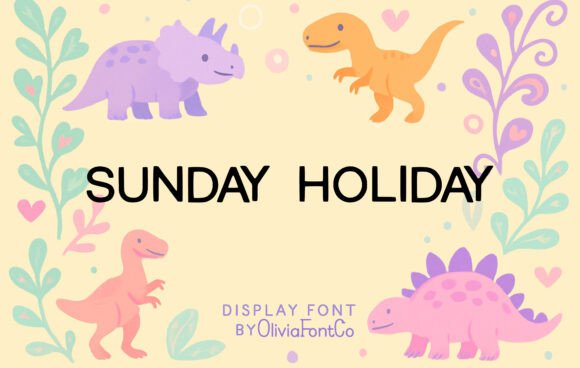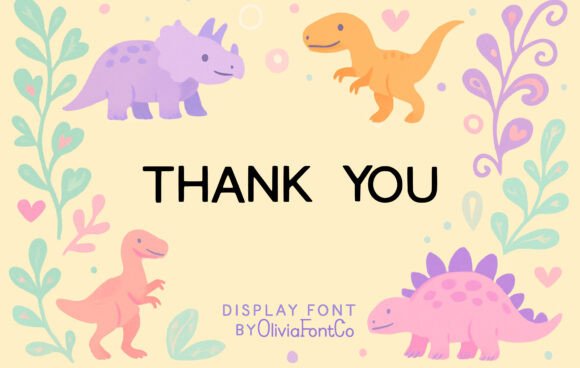
Introducing Adithia Font: Elevate Your Designs with Elegance and Versatility
In the world of design, fonts play a pivotal role in bringing creative ideas to life. Among the myriad of typefaces available, Adithia Font stands out as a remarkable choice for designers and crafters alike. This font is designed to be a true favorite, boasting elegance, versatility, and legibility that can elevate your projects to the highest level. Whether you’re working on magazine headlines, t-shirts, social media content, branding, wedding invitations, cards, or any other design endeavor, Adithia Font is the perfect companion to help you achieve your creative goals.
Unleash Your Creativity with Adithia Font
Adithia Font is crafted with precision to ensure it meets the demands of modern design. Its unique characteristics make it highly legible, whether used as a title or body text. This versatility is crucial for designers who need a reliable font that can perform well across various applications. From the bold statement of a magazine headline to the subtle elegance of a wedding invitation, Adithia Font adapts seamlessly, making it an indispensable tool in your design arsenal.
Why Choose Adithia Font?
There are several reasons why Adithia Font should be your go-to choice for your next design project:
- Elegance and Sophistication: Adithia Font exudes a sense of elegance and sophistication, making it perfect for designs that require a touch of class.
- Versatility: Its adaptability across different design projects means you can rely on Adithia Font for a wide range of applications, from digital content to print materials.
- Legibility: The font’s clear and readable design ensures that your message is conveyed effectively, whether it’s used in a headline or as body text.
- Creativity Unleashed: With Adithia Font, you can experiment with various design ideas, knowing that the font will help bring your vision to life.
Applications of Adithia Font
The possibilities are endless with Adithia Font. Here are some of the many ways you can utilize this exceptional font:
- Magazine Headlines: Create eye-catching titles that draw readers in.
- T-Shirts and Merchandise: Add a professional touch to your apparel designs.
- Social Media: Stand out on social platforms with unique and engaging content.
- Branding: Establish a consistent and elegant visual identity for your brand.
- Wedding Invitations and Cards: Add a touch of sophistication and romance to your designs.
Tips for Maximizing the Potential of Adithia Font
To get the most out of Adithia Font, consider the following tips:
- Experiment with Sizes: Adithia Font looks great in various sizes, from large headlines to smaller body text.
- Play with Colors: The font’s design complements a wide range of colors, allowing you to match it with your brand’s palette or project theme.
- Combine with Other Fonts: For added creativity, try pairing Adithia Font with complementary fonts to create visual interest.
Adithia Font is more than just a typeface; it’s a design companion that can help you bring your creative ideas to fruition. Its elegance, versatility, and legibility make it an excellent choice for a wide range of design projects. Whether you’re a professional designer or a crafty DIY enthusiast, Adithia Font has the potential to elevate your designs and make them truly unforgettable. So why wait? Explore the possibilities with Adithia Font today and take your designs to new heights.